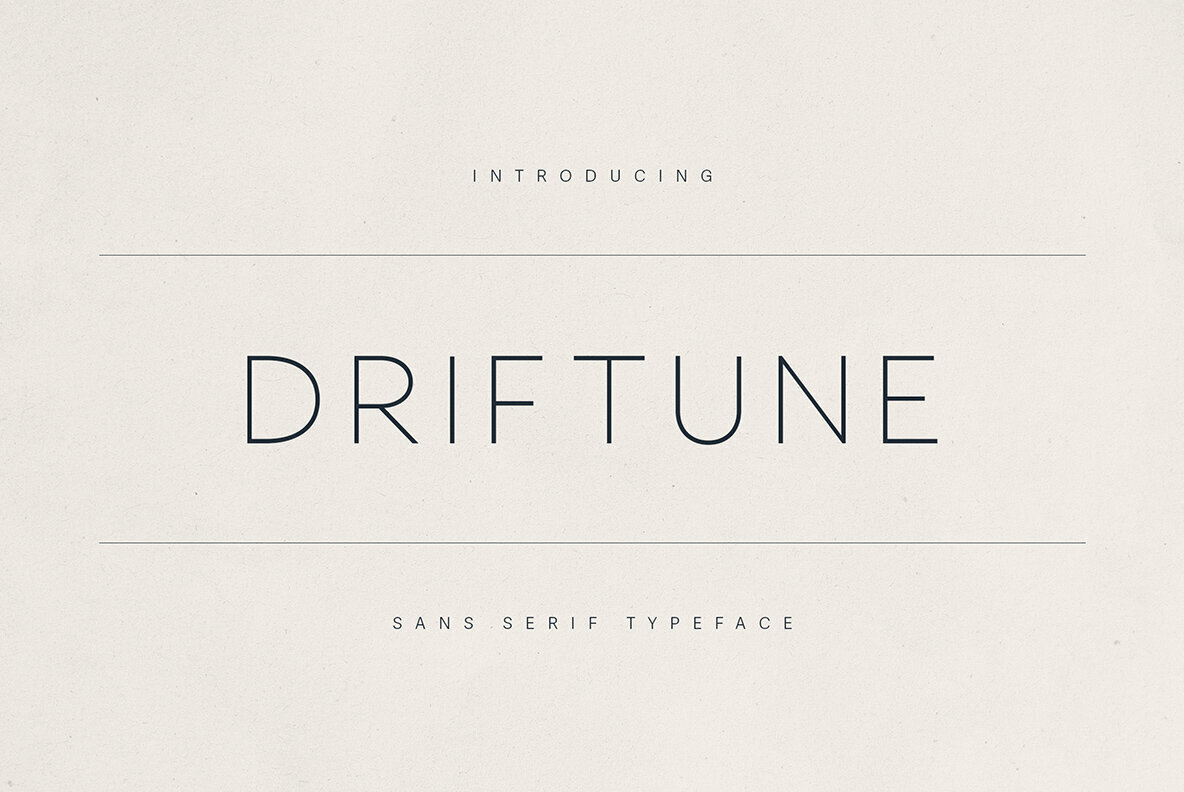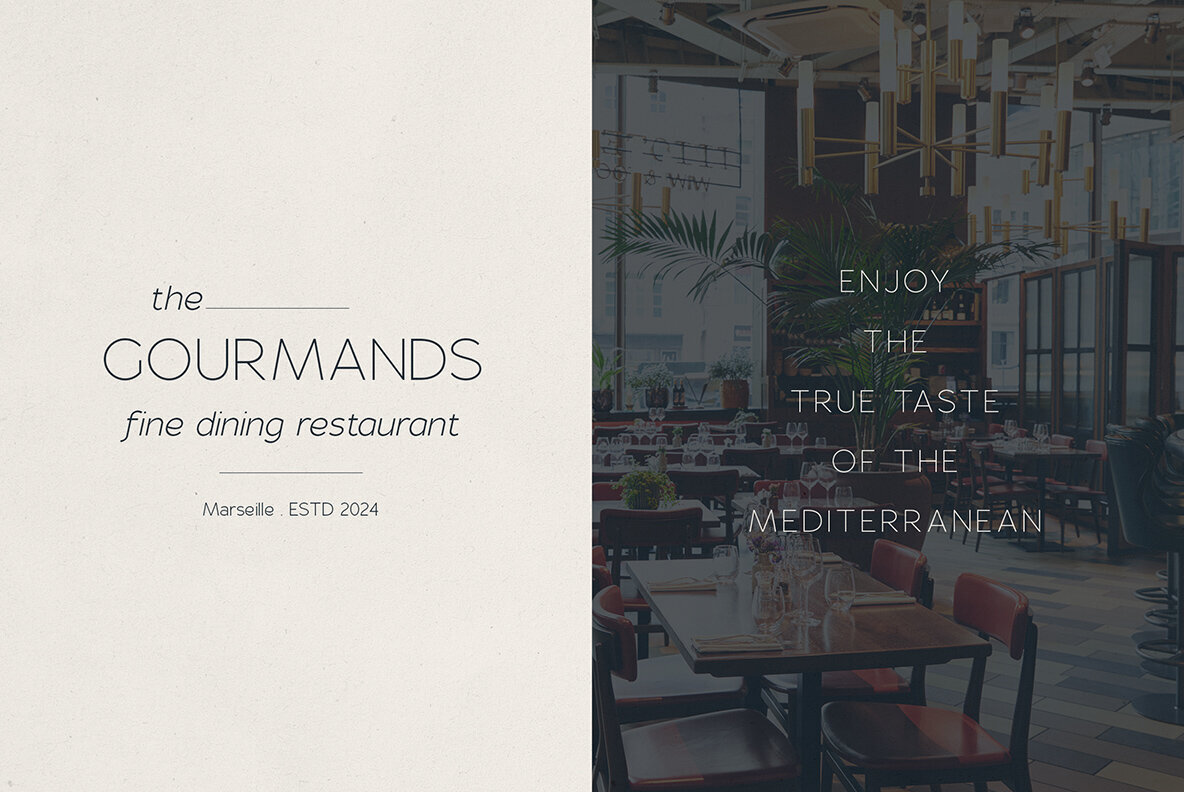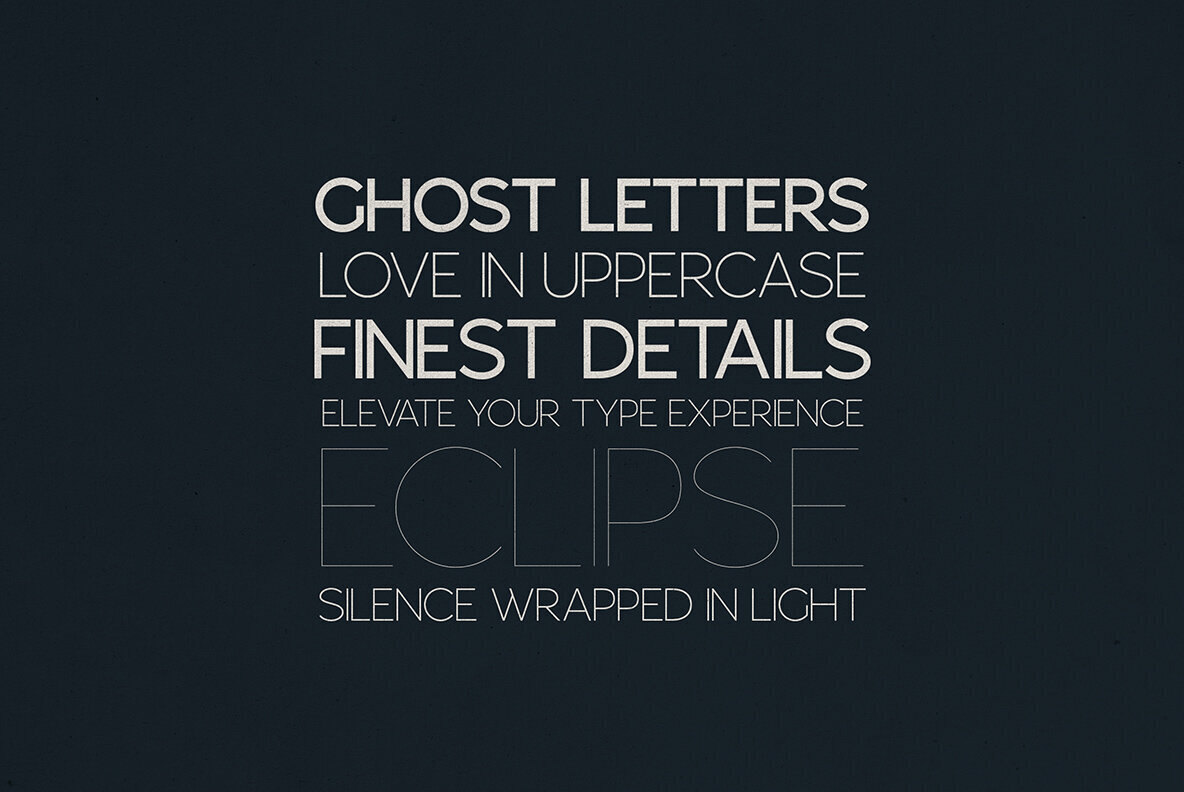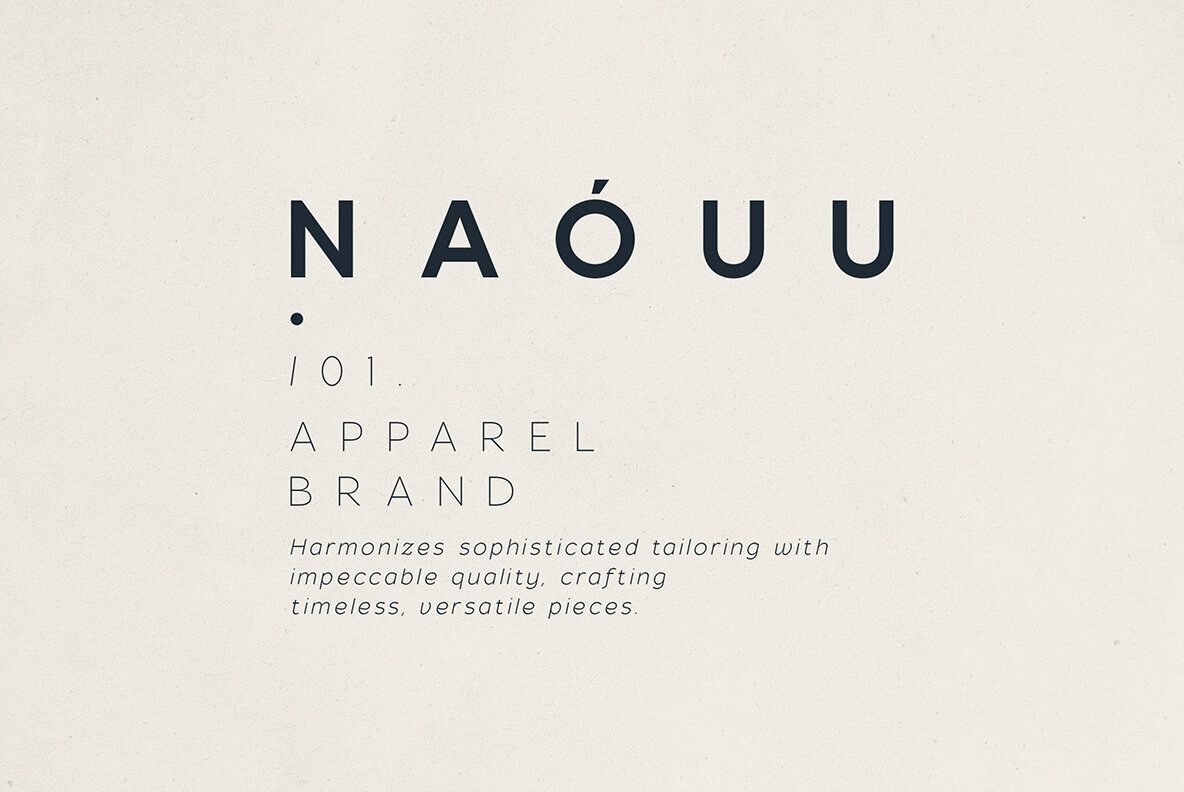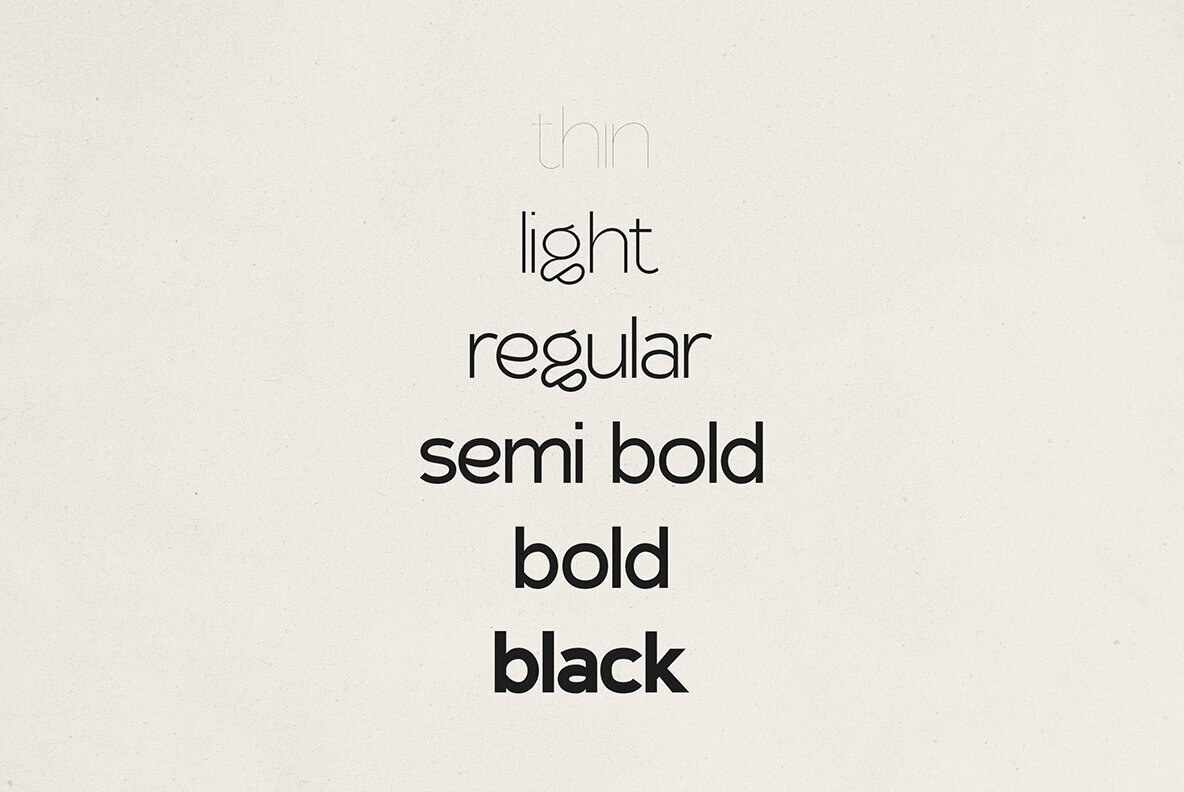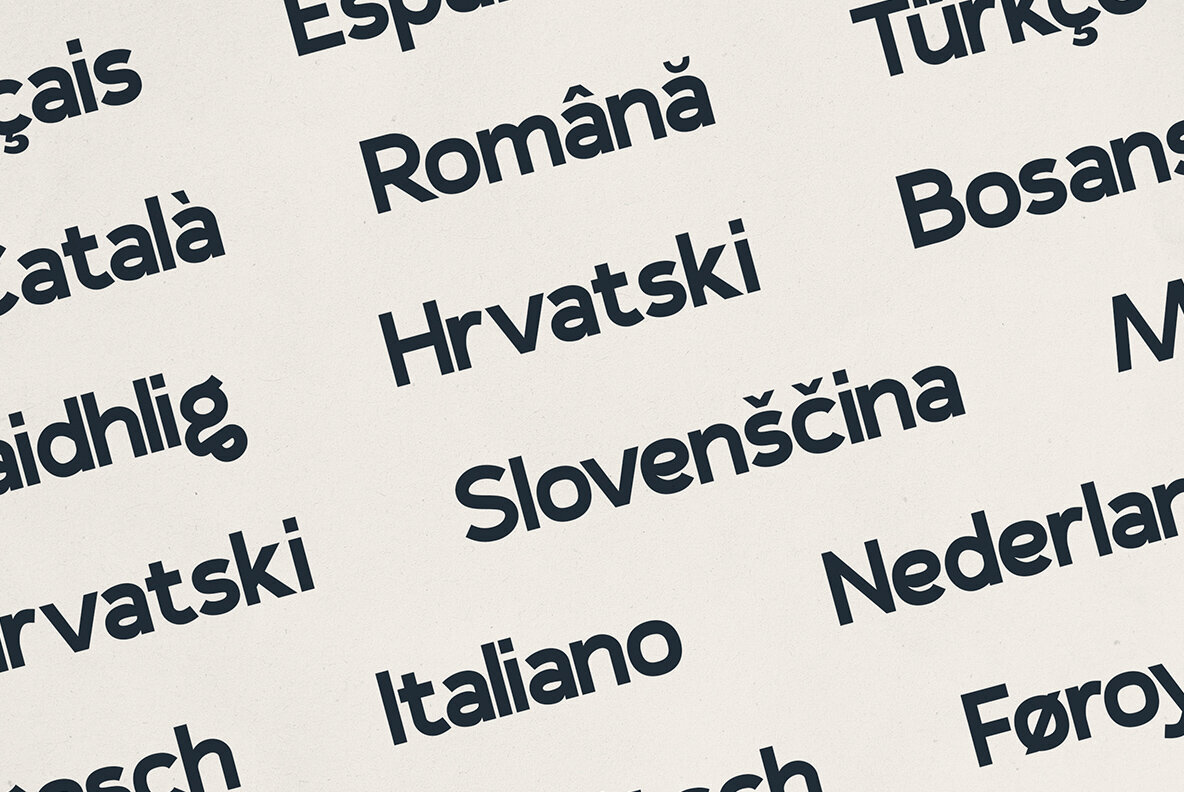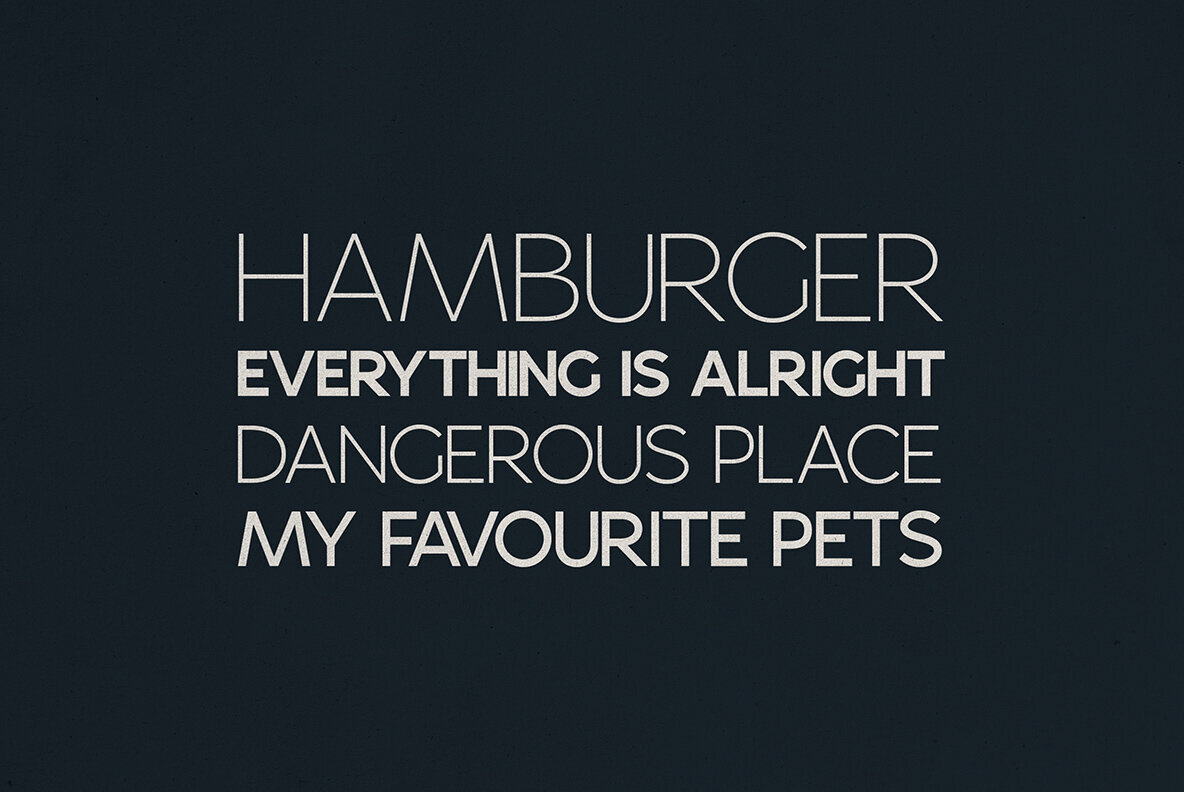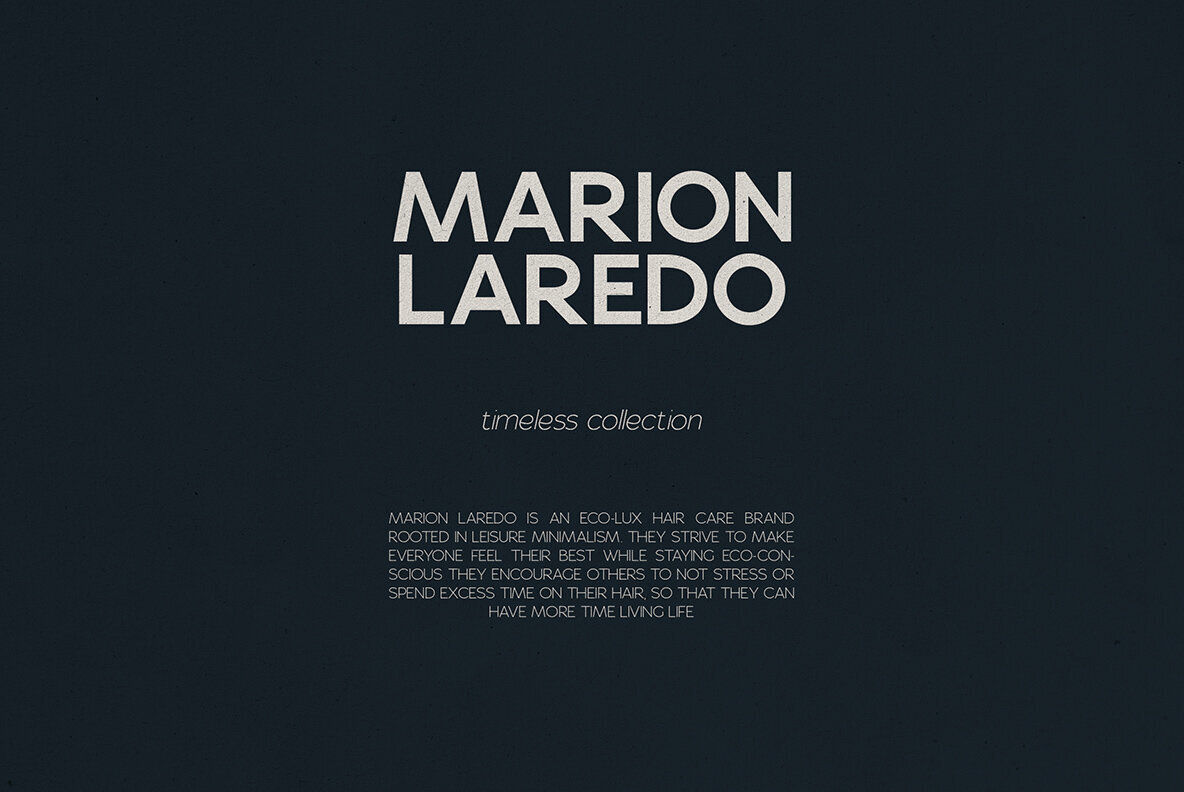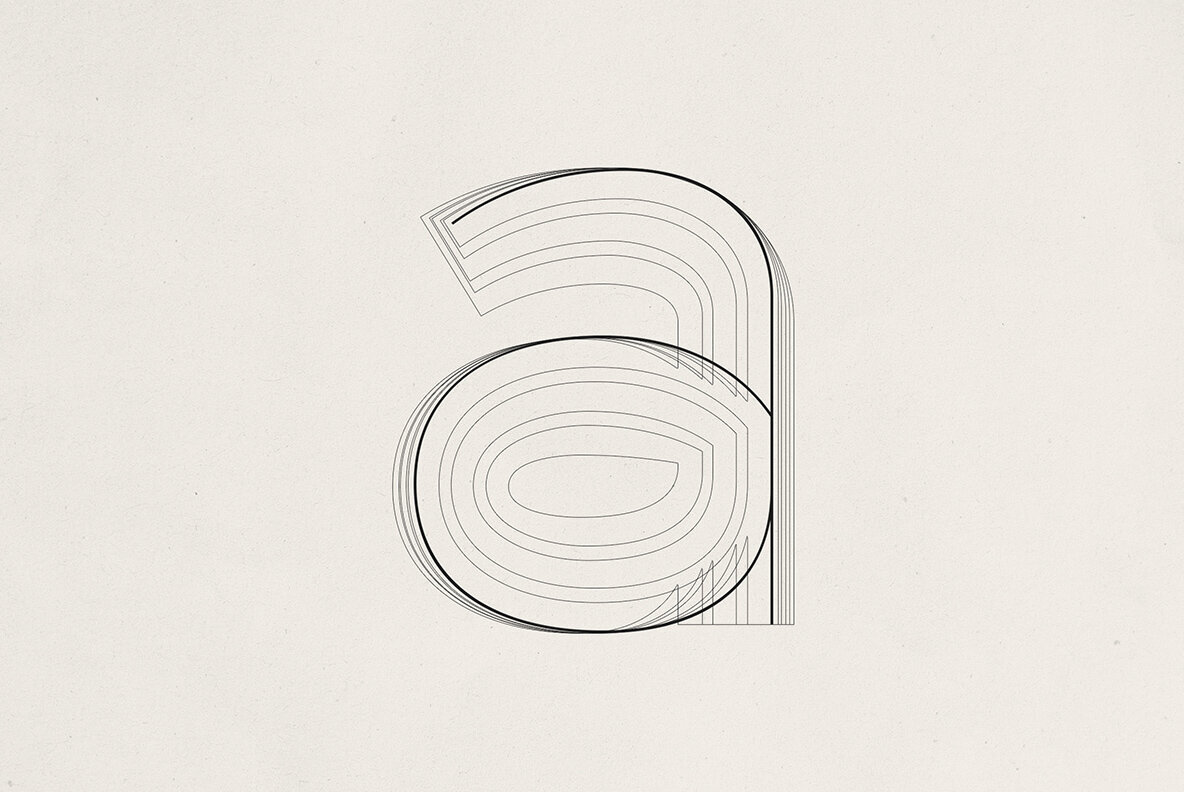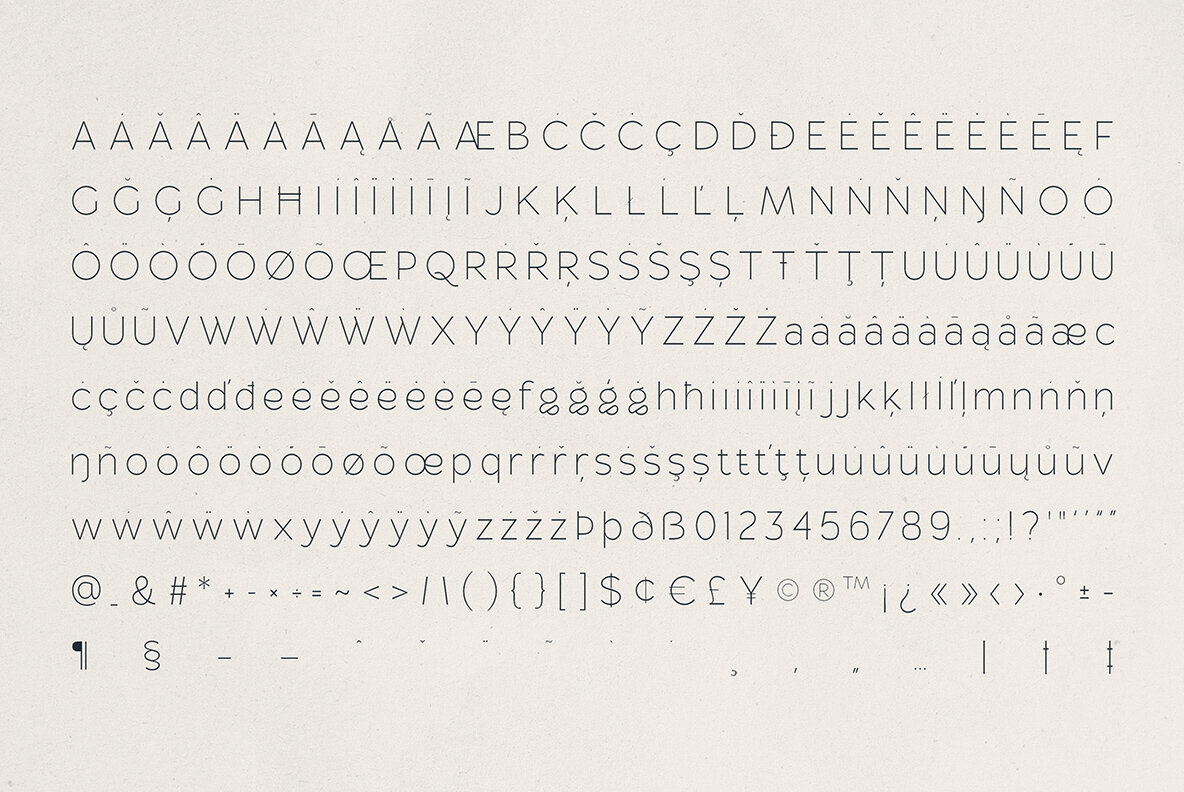
Driftune Font
Driftune effortlessly marries minimalism with versatile functionality, creating a refined sans serif typeface that elevates any design project. Its clean lines and spacious character design exude sophistication, making it perfect for modern branding, luxury logos, editorial layouts, high-end packaging, and upscale restaurant identities. Whether catering to fashion, hospitality, or creative sectors, Driftune instils a sense of timeless clarity and understated confidence in every creation. With its light and airy aesthetic, Driftune complements both classic and contemporary styles seamlessly, making it the ideal choice for premium, minimalist designs. This elegant typeface supports multilingual characters, making it versatile for global design initiatives. Whether used for display or body text, it offers a clean, professional appearance with a luxurious feel, ensuring your brand communicates elegance with every letter.Driftune: Modern Elegant Sans Serif Typeface